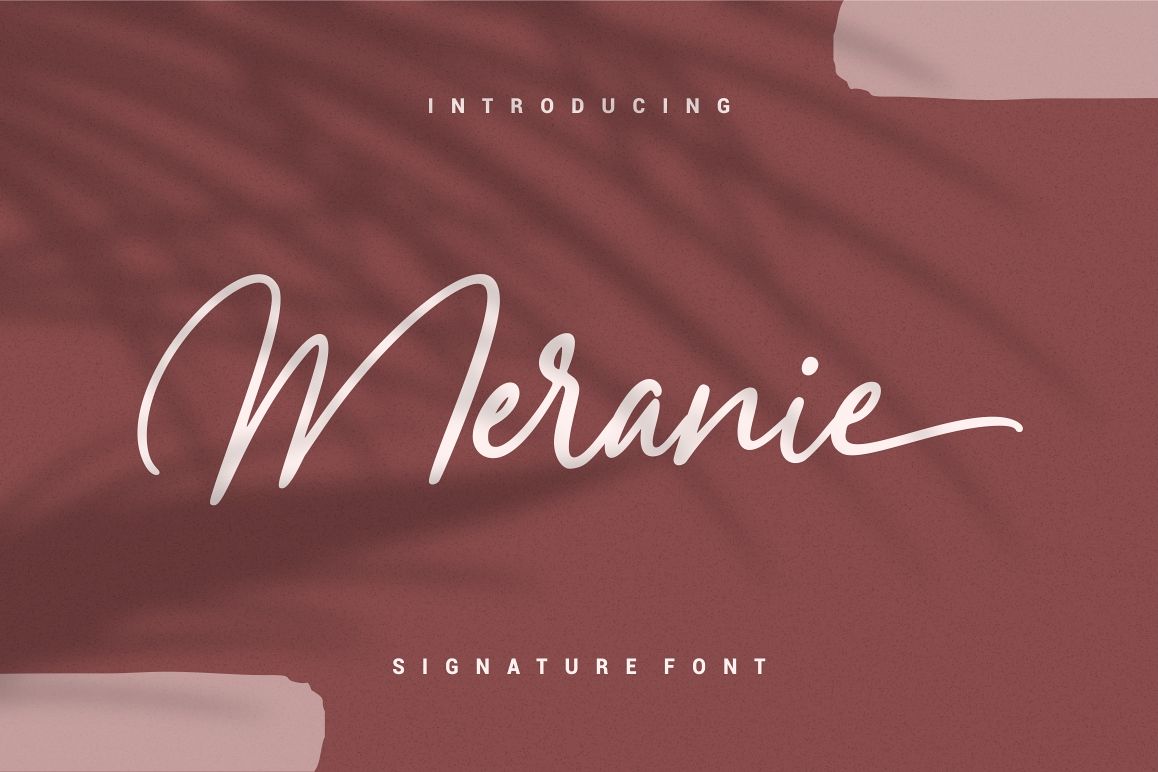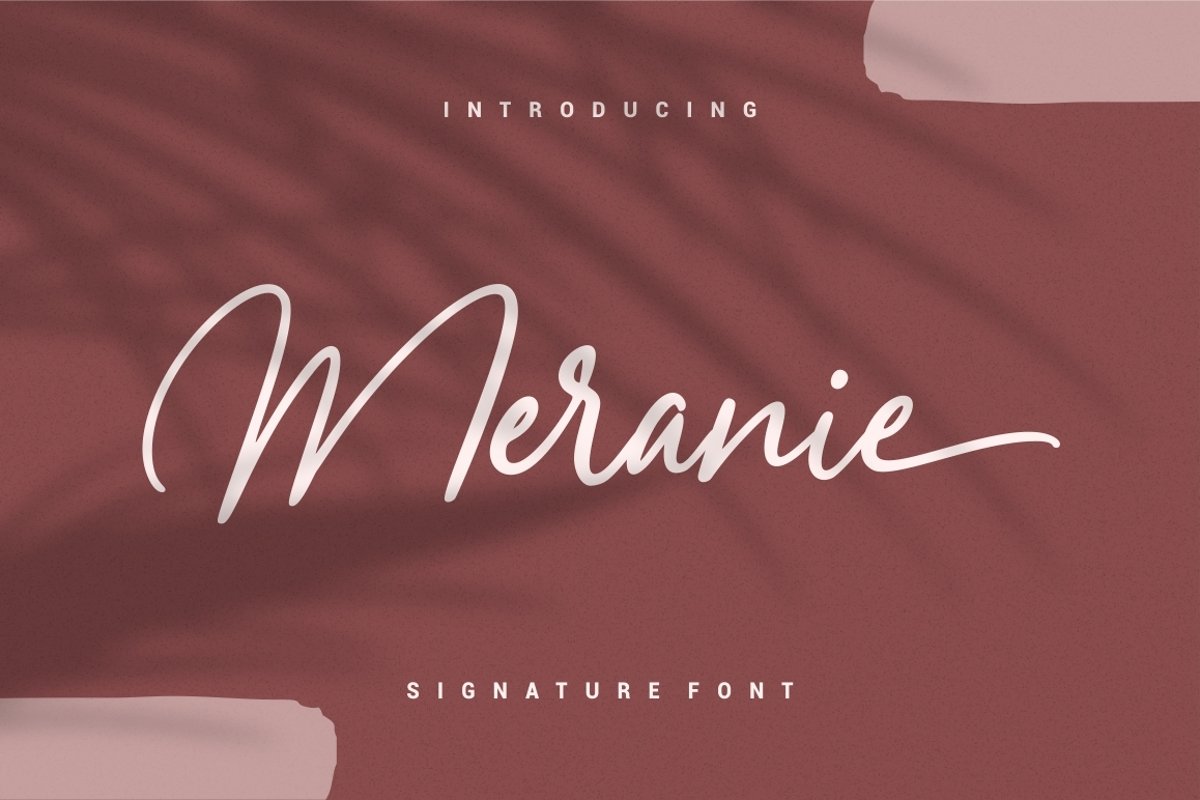
Meranie - Signature Font
Meranie - Signature FontMeranie is made a naturally modern script with the ending swashes and more than ligatures. With the unique Opentype in it and the ligature will add aesthetic value to your design product. Available in this file are Meranie Swash which you can unite into an amazing design.
• Ligatures & Opentype included
• Swashes
• Versatile for poster, logotype, labels, book cover